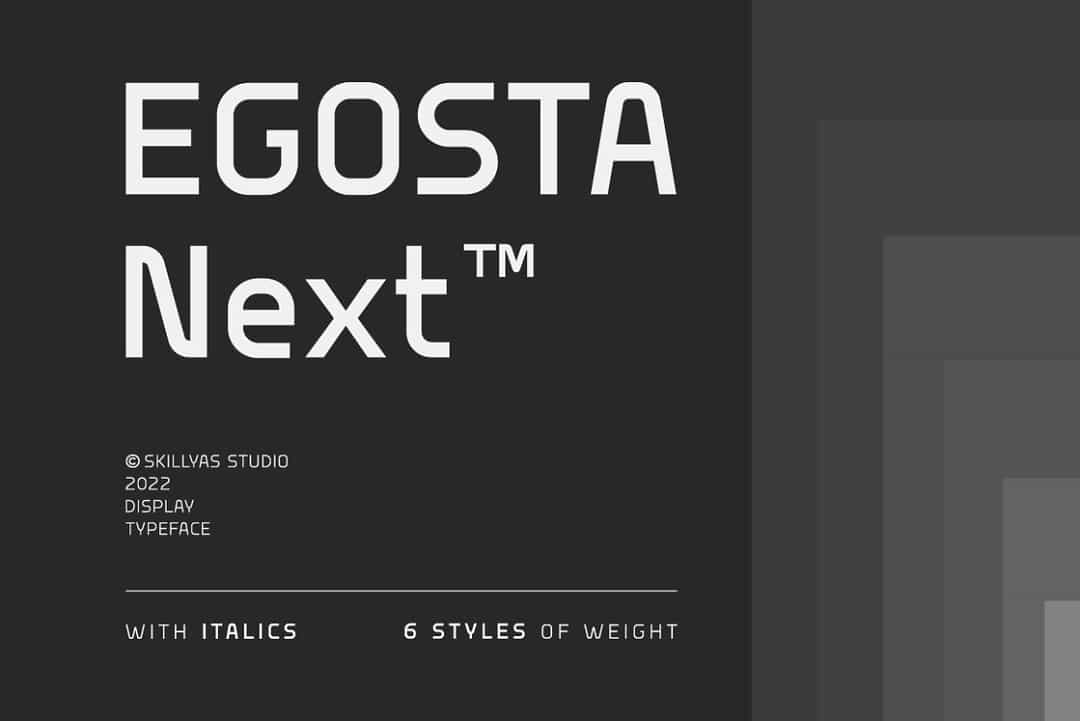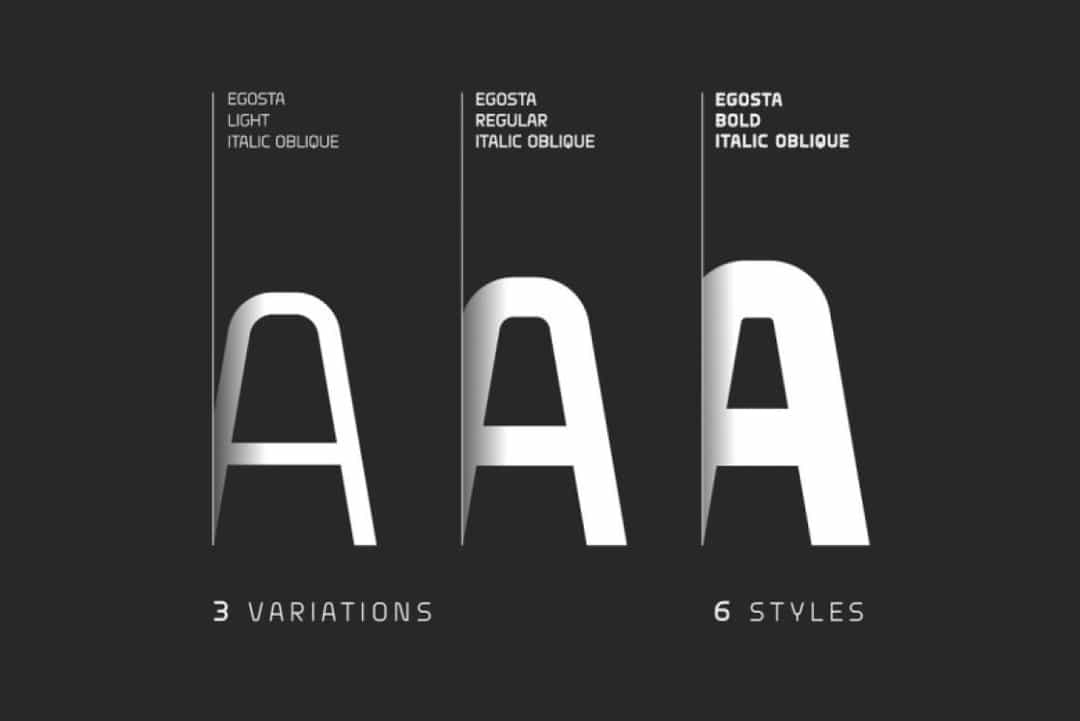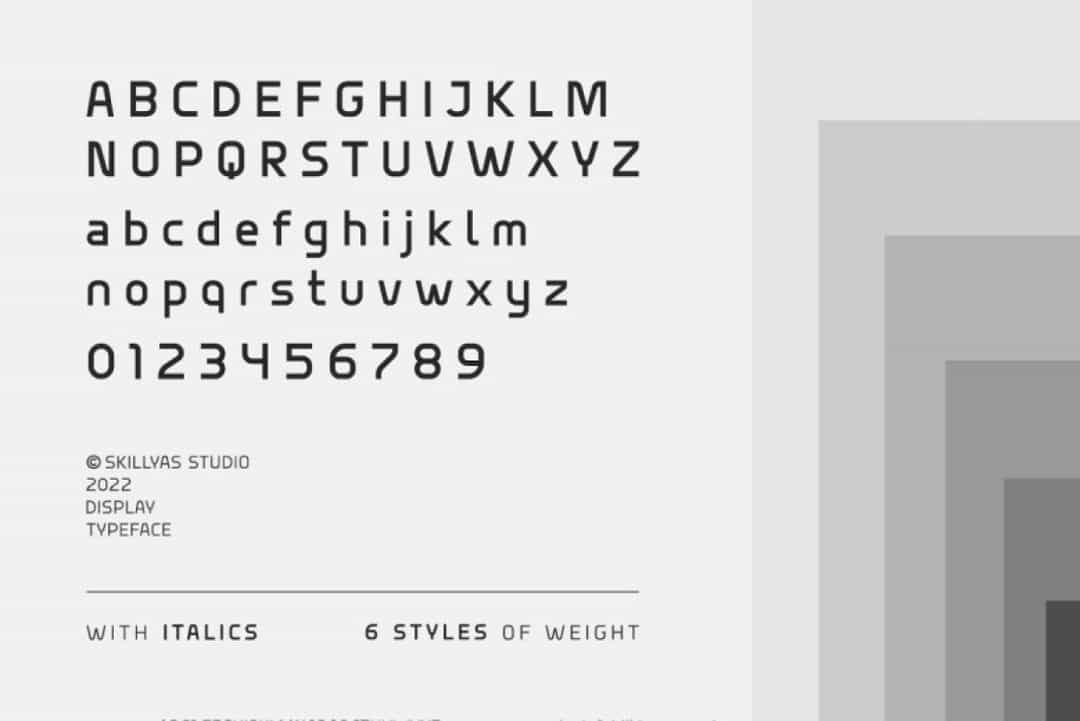
EGOSTA is an all-inclusive sans serif font family with sharp and angular variations that create an eye-catching typeface arranged graphically, ideal for futuristic and contemporary visual requirements. EGOSTA complete family comprises six styles; weight and width can be controlled independently for each style, offering thin to bold styles.